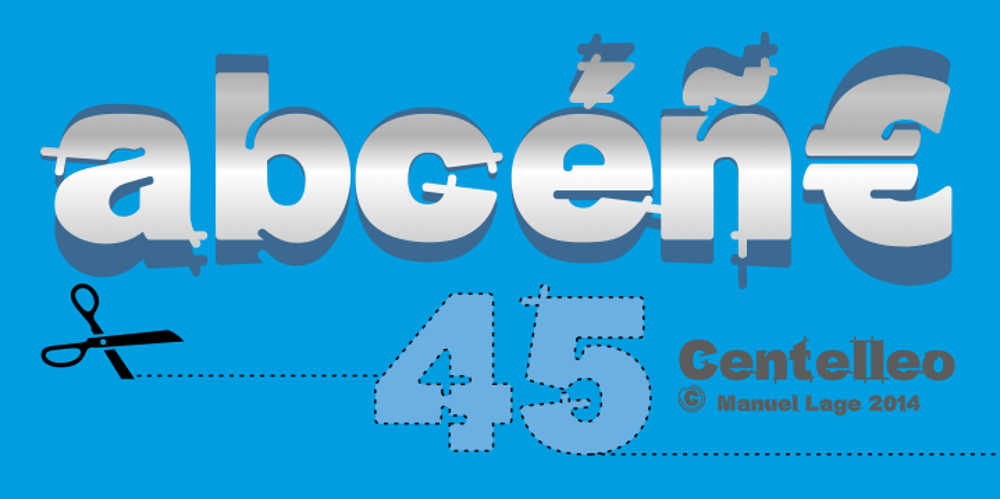
LGF Centelleo Font Family was designed by Manuel Lage and published by LGF Fonts. LGF Centelleo contains 2 styles and family package options. The Centelleo type is based on my fonts “Besitos”. It is a big evolution of “Besitos” with some arrangement, intended as a simple and clear source, but endowed with its own personality. “Centelleo” is a type with its own shape and glyphs, ideal for large and medium sizes, posters and even modern logos.